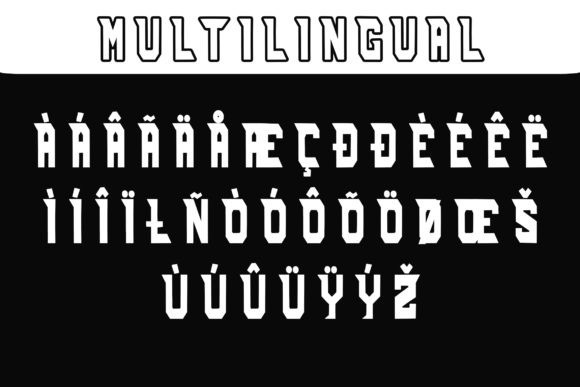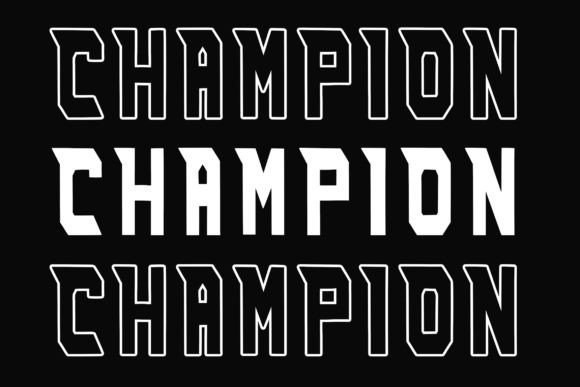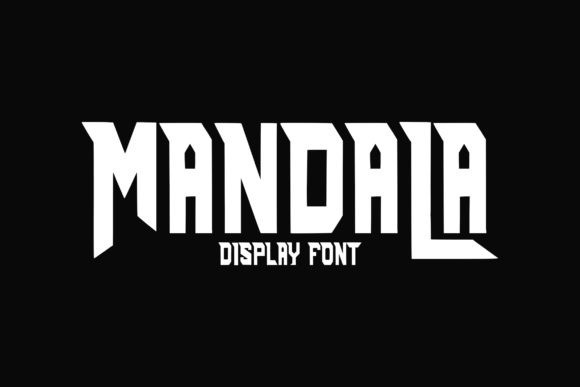
Mandala Font
Mandala Display Font is a bold and thick lettered display font. This font would be ideal for writing web designs, business cards, or pretty much anything else that requires a unique touch.